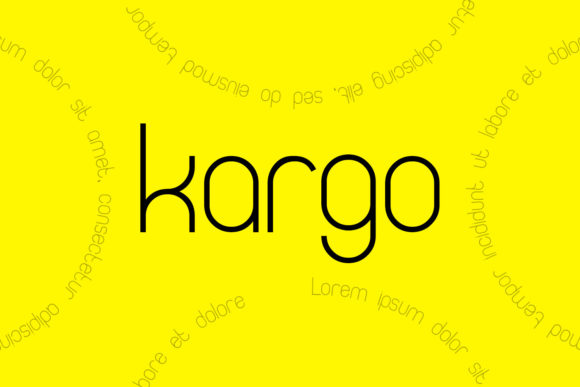
Introducing Kargo Font: The Gateway to Unparalleled Presentations and Designs
Embark on a typographical odyssey with Kargo Font, a remarkable display font that epitomizes grace, adaptability, and elegance. Crafted by the ingenious minds at BeeType, Kargo emerges as the ultimate weapon in your creative arsenal, poised to transform your presentations and designs into masterpieces that captivate and inspire.
Delve into the world of Kargo and discover a font that seamlessly blends simplicity and sophistication. Its slender strokes evoke a sense of delicate finesse, while its unwavering structure exudes an aura of stability and poise. Whether you're crafting presentations that command attention or designing projects that exude creativity, Kargo effortlessly rises to the occasion, adapting to your every need with remarkable ease.
Unleash your imagination and witness the transformative power of Kargo. Its versatility knows no bounds, effortlessly complementing a diverse range of projects. From PowerPoint headings that radiate boldness to brochures that emanate sophistication, Kargo seamlessly integrates into your vision, enhancing it with a touch of understated elegance.
Immerse yourself in a world of possibilities with Kargo and unlock the true potential of your creative endeavors. Its thin, simple, and adaptable nature invites endless experimentation, encouraging you to push the boundaries of your imagination and explore uncharted creative territories. Experience the boundless freedom that Kargo offers, as it seamlessly adapts to your unique style and vision.
As you embark on your creative journey with Kargo, prepare to be amazed by its transformative abilities. Witness how effortlessly it elevates your presentations, captivating your audience with its refined charm. Behold the remarkable impact it has on your designs, adding a touch of sophistication that sets them apart from the ordinary. Kargo is more than just a font; it's a gateway to a world of boundless creativity, waiting to be explored.
Embrace the power of Kargo Font and elevate your creative pursuits to new heights. Discover the endless possibilities that await you as you unlock the true potential of this remarkable font. Experience the joy of seamless adaptability, effortless elegance, and unwavering simplicity. Kargo is your gateway to typographical excellence – seize it today and embark on a journey of creative transformation.